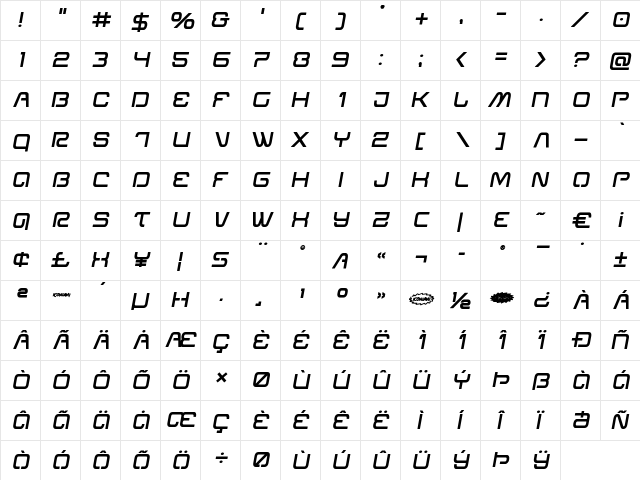
Miracle Mercury Semi-Bold Semi-Italic Font Preview
Design Context for Miracle Mercury Semi-Bold Semi-Italic Typeface
Miracle Mercury Semi-Bold Semi-Italic is a composed and adaptable typeface that performs quietly and consistently across a wide range of design contexts. The slanted form adds forward momentum and visual energy. Its bold stroke weight gives it real presence on the page.
Pro Tip: Try Miracle Mercury Semi-Bold Semi-Italic for annotation and caption copy alongside an upright companion — the contrast in angle creates a dynamic but ordered typographic system.